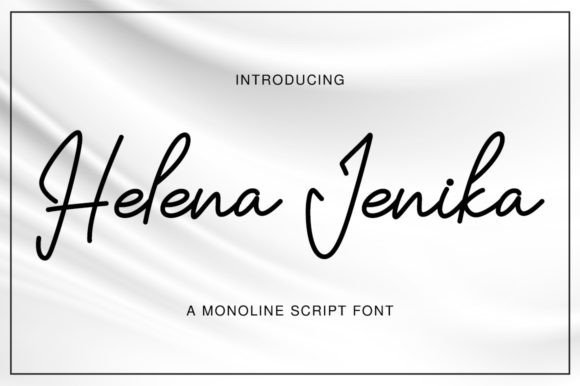
Indulge in the captivating beauty of Helena Jenika, an enchanting script font that will ignite your creativity and add a touch of elegance to your designs.
As you embark on your quest for the perfect font, let Helena Jenika guide you through a world of timeless charm and endless possibilities. With its delicate strokes and joyful spirit, this font will become your trusted companion, accompanying you on a journey of heartfelt expression.
Imagine your wedding invitations adorned with Helena Jenika's graceful curves, inviting guests to a celebration that radiates love and romance. The font's delicate lines will weave tales of joy and anticipation, setting the perfect tone for a day filled with cherished memories.
Unleash your creativity with Helena Jenika's versatility, as it effortlessly adapts to any design project. From the warmth of handwritten letters to the allure of elegant logos, this font will seamlessly blend into your vision, adding a touch of sophistication and timeless appeal.
Let the magic of Helena Jenika inspire your artistic endeavors, transforming ordinary words into extraordinary works of art. Its enchanting essence will captivate your audience, leaving a lasting impression that whispers of heartfelt emotions and timeless grace.
Embrace the power of Helena Jenika and embark on a creative journey where elegance and emotion intertwine. Let this captivating script font become your muse, guiding you towards designs that evoke heartfelt connections and leave an unforgettable mark.